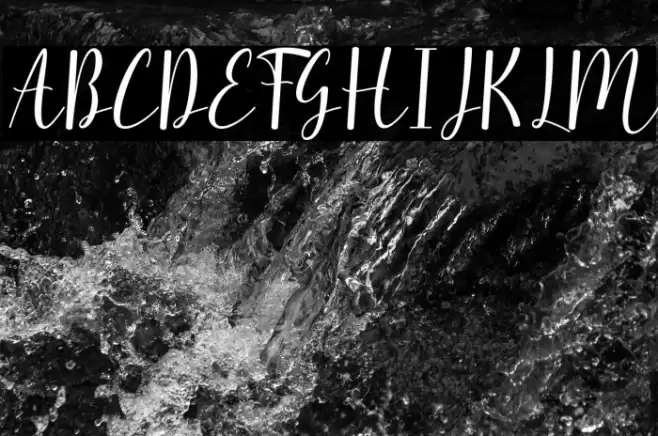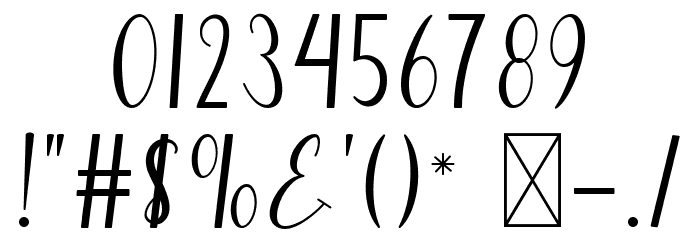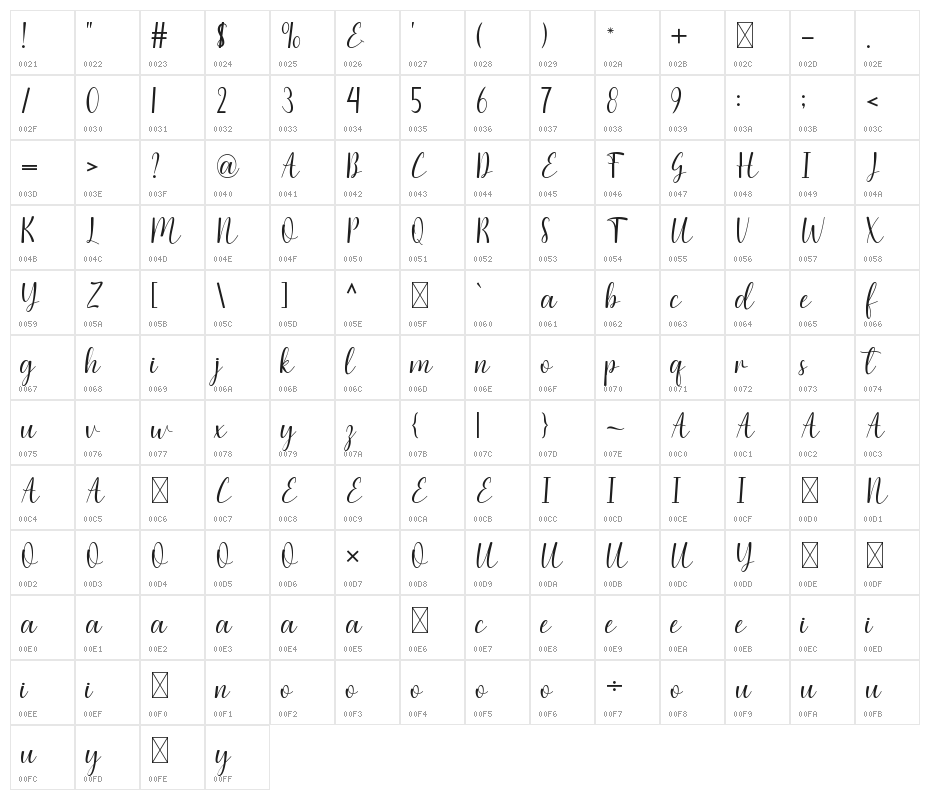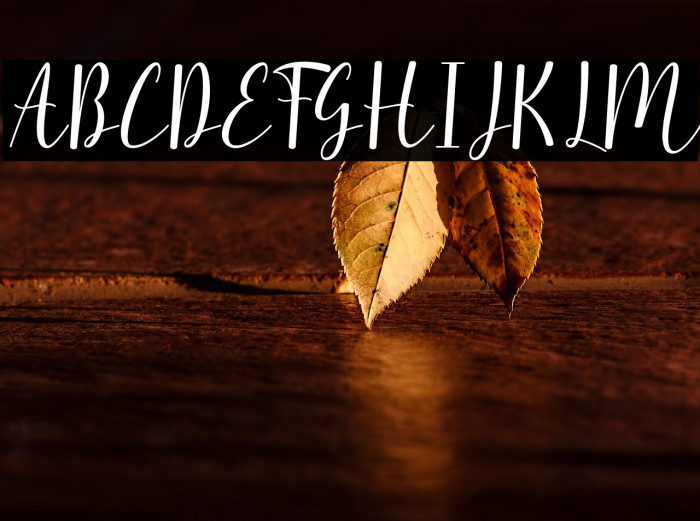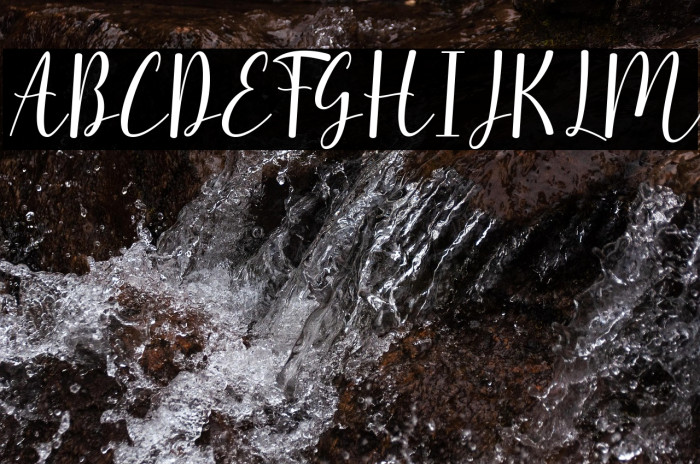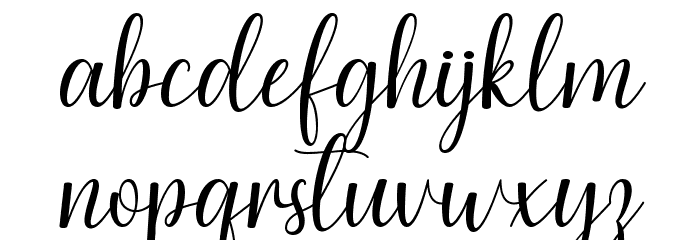
Micelle Font
Micelle Description
This font features a stylish and elegant script design with a flowing, cursive style. The uppercase letters are tall and slender, with graceful curves and a slight slant, giving them a sophisticated appearance. The lowercase letters maintain a consistent flow, with smooth connections between characters, enhancing the script's fluidity. The numerals are clear and distinct, complementing the overall aesthetic. Special characters are thoughtfully designed, maintaining the font's cohesive look. This font exudes a sense of elegance and charm, making it suitable for a variety of creative projects.
A stylish and elegant script font with flowing, cursive characters from Uncategorized fonts.
- Proposed Projects: Ideal for wedding invitations, greeting cards, branding, and elegant packaging designs.
- Overall Style: Elegant
- Use Case: Logos, Invitations, Greeting Cards